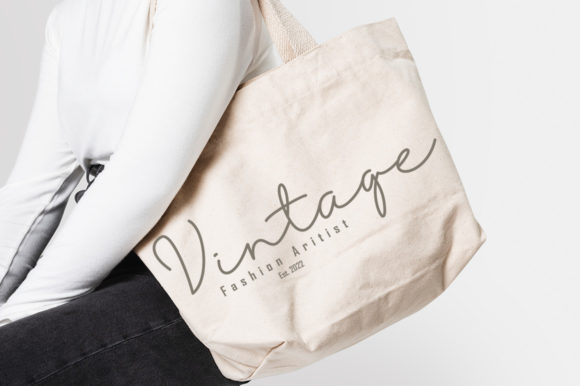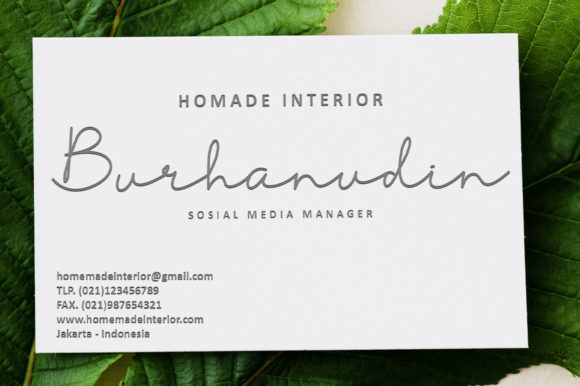
Allisttha Font
db-ku.com - Script & Handwritten -- Allisttha is a vintage styled script font. It looks great on wedding invitations, thank you cards, quotes, greeting cards, logos, business cards, business promotions, advertisements, posters, marketing, branding and any other designs that require a special touch and high quality.